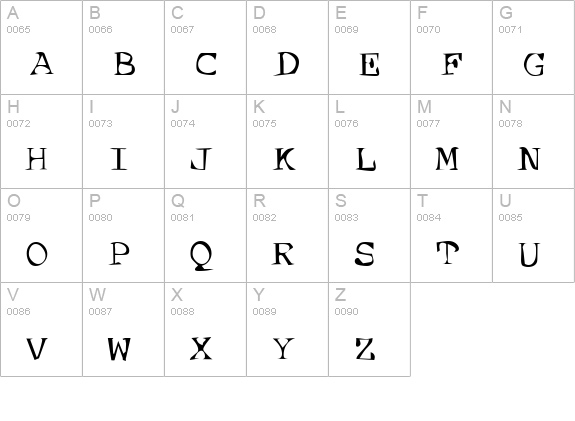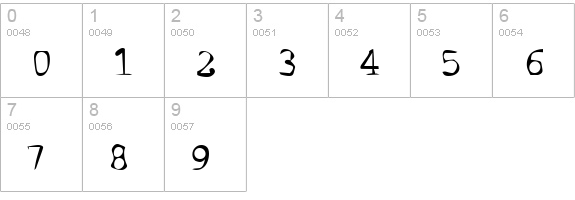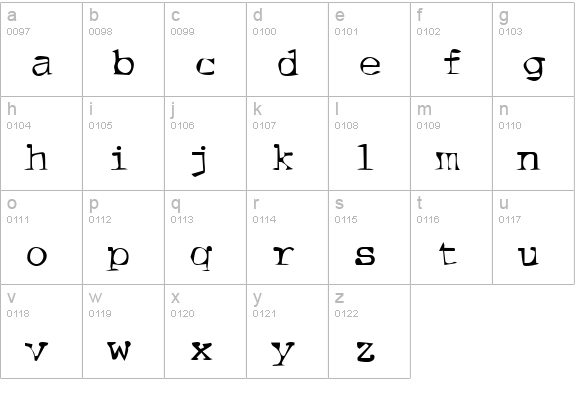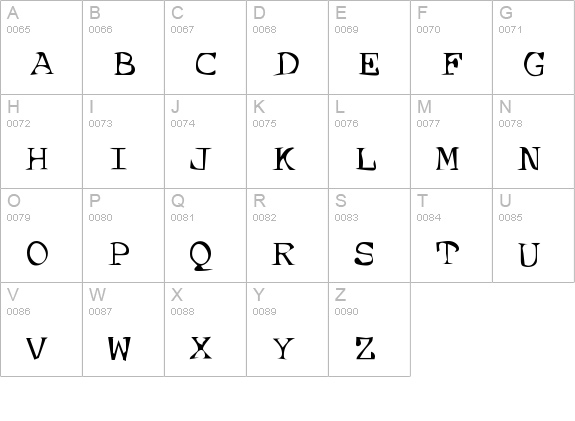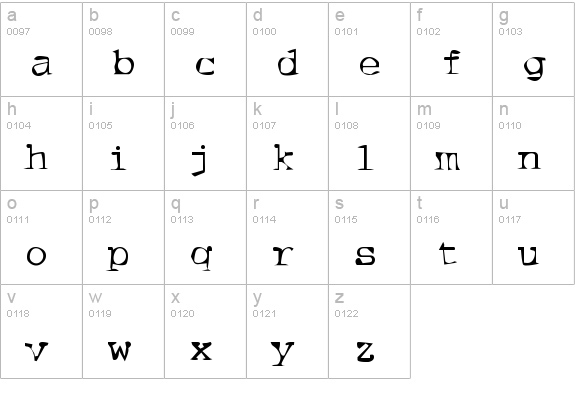
Dirty07-Bold Font Details
Dirty07-Bold is a strong, high-contrast variant in the Dirty07 typeface family \xE2\x80\x94 well suited to headlines, attention-grabbing titles, and strong calls-to-action.
Dirty07-Bold font is a rugged and bold typeface that exudes a gritty and edgy vibe. With its distressed and rough appearance, this font is perfect for creating eye-catching designs that stand out from the crowd. Whether you're working on a poster, flyer, logo, or any other creative project, Dirty07-Bold font will add a touch of urban attitude to your work. Best of all, Dirty07-Bold font is completely free to download at FontsMarket.com. This means you can easily access this unique and stylish font to enhance your design projects without having to worry about any additional costs. Don't miss out on the opportunity to add Dirty07-Bold font to your font collection and take your designs to the next level.